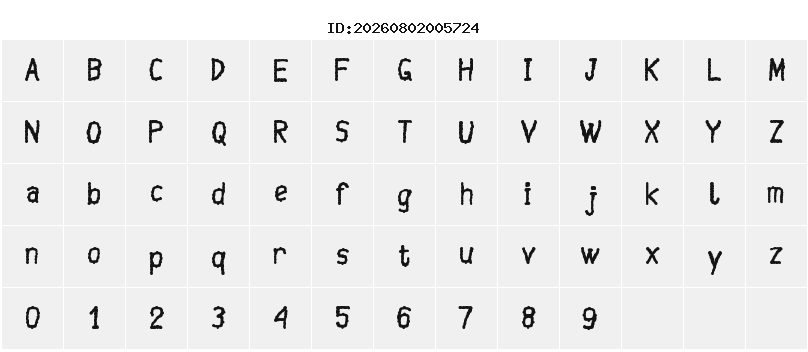
Mayuragifkas Italic Preview
• Font Name: Mayuragifkas Italic
• Designer: Lab-room for viper78 Clerical Office - viper78 aka Vlad Viperov, Volgograd 2015
• Manufacturer: Lab-room for viper78 Clerical, Vlad Viperov
• Description: Decorative Exotic fonts for use in all places
About Mayuragifkas Italic.ttf
Mayuragifkas Italic.ttf is a modern, elegant sans-serif font designed for ultimate readability and visual harmony. Perfect for branding, headlines, web design, and print materials.